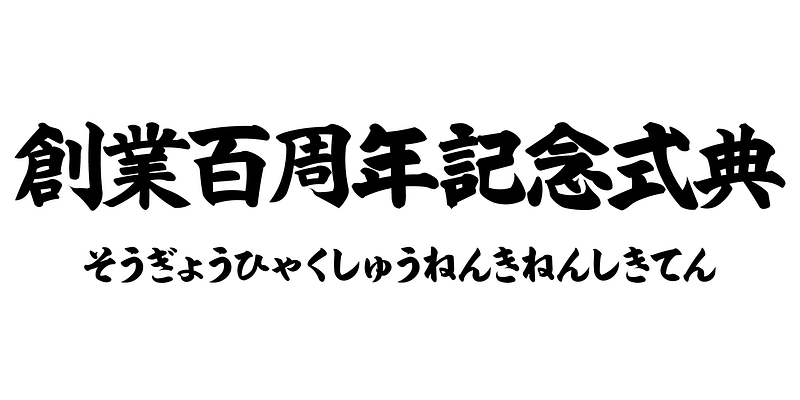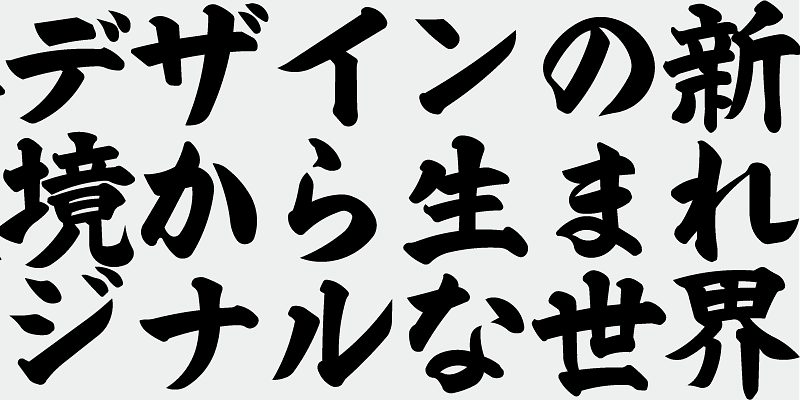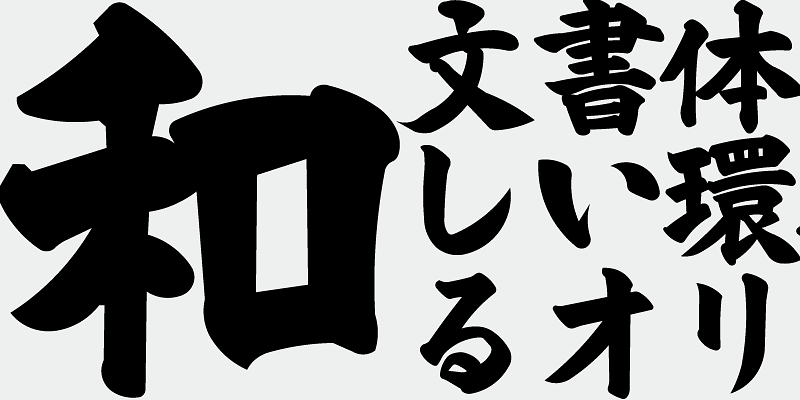
TAw-Byakko Kaisho_Tail is a brush kaisho (regular script) font, released in 1997 with the Gradeo software for making signs and displays. Originally named “GF Futokaisho H,” the font was renamed “TAw-Byakko Kaisho_Tail” with its April 2026 renewal. *Half-width characters feature designs common to the brush fonts in the TA/TAw series.
These fonts were first released in 1997, bundled with the Gradeo software for making signs and displays.